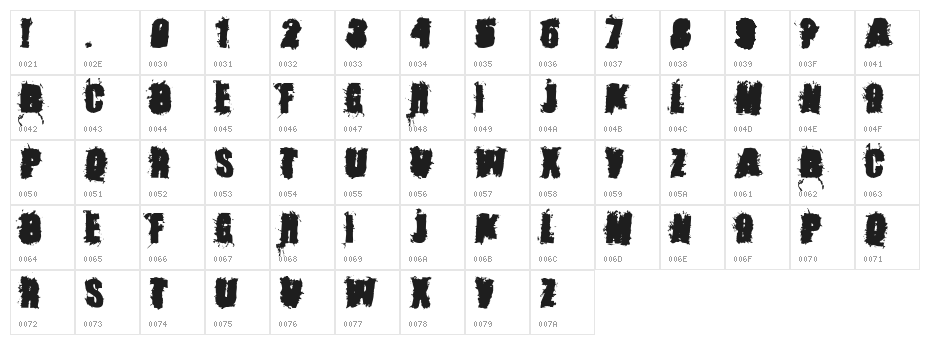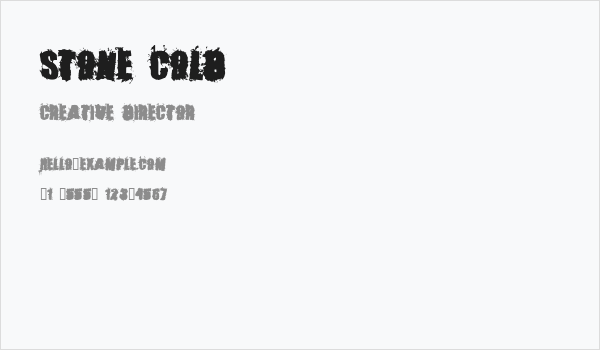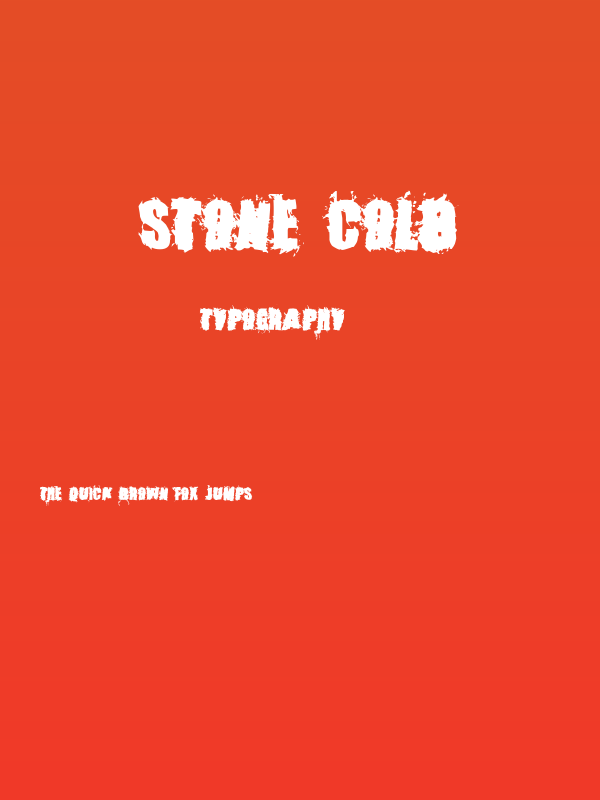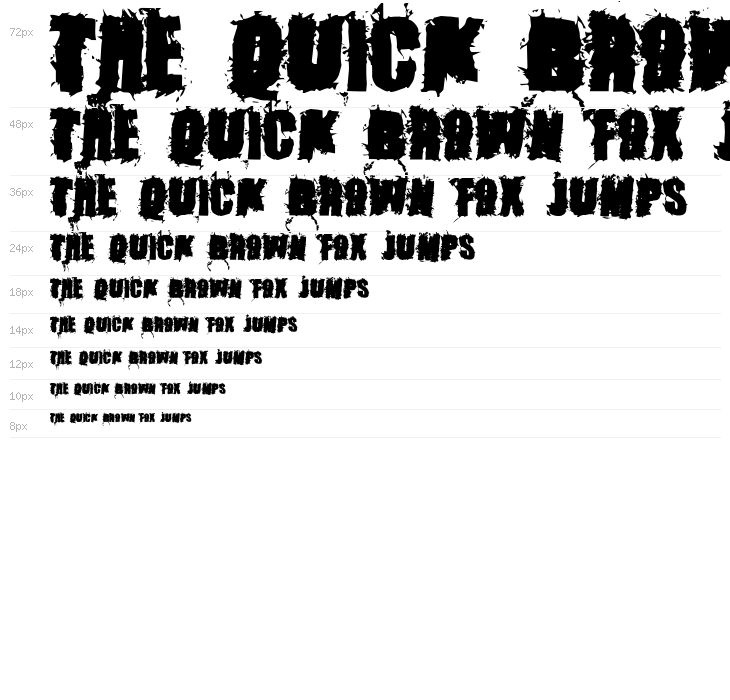
Stone Cold Font
Stone Cold Description
This font features a rugged, distressed appearance, reminiscent of eroded stone or weathered surfaces. The characters are bold and heavily textured, with irregular edges that give a sense of decay or destruction. Each letter and number appears as if it has been carved from rock, with rough, jagged outlines that create a dramatic and impactful visual effect. The font's unique style makes it stand out, capturing attention with its raw and gritty aesthetic. It is ideal for designs that require a strong, edgy look, such as posters, album covers, or any project aiming to convey a sense of toughness or rebellion.
| Proposed Projects | Ideal for music album covers, movie posters, extreme sports branding, or any project needing a gritty, impactful look. |